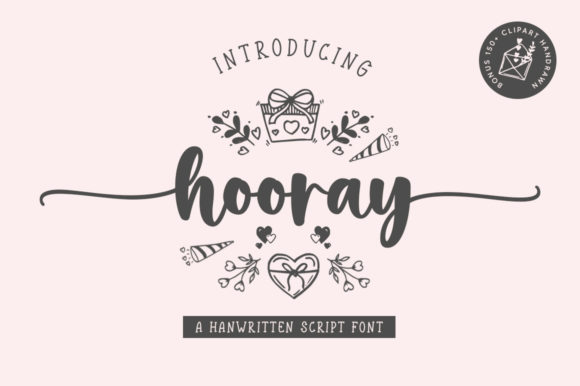
Behold Hooray Font, a captivating script font that will infuse your designs with a touch of whimsy and elegance. This enchanting font family, meticulously crafted by Graphix Line Studio, features graceful curves and playful characters that will dance across your projects, transforming them into visual masterpieces.
Immerse yourself in the beauty of Hooray's meticulously designed glyphs and swashes, effortlessly accessible thanks to its PUA encoding. Unleash your creativity and adorn your designs with an array of charming accents, adding depth and personality to each letterform.
With Hooray Font as your trusty companion, you'll effortlessly elevate your designs to new heights. Whether you're creating stunning logos, eye-catching social media posts, or heartfelt invitations, Hooray's captivating charm will leave a lasting impression on your audience.
Say goodbye to ordinary fonts and embrace the magic of Hooray Font, the ultimate choice for designers seeking a font that sparks imagination and ignites creativity. Experience the joy of transforming your designs into captivating works of art that resonate with your audience. Hooray Font is more than just a font; it's an invitation to unleash your inner artist and create designs that leave a lasting legacy.